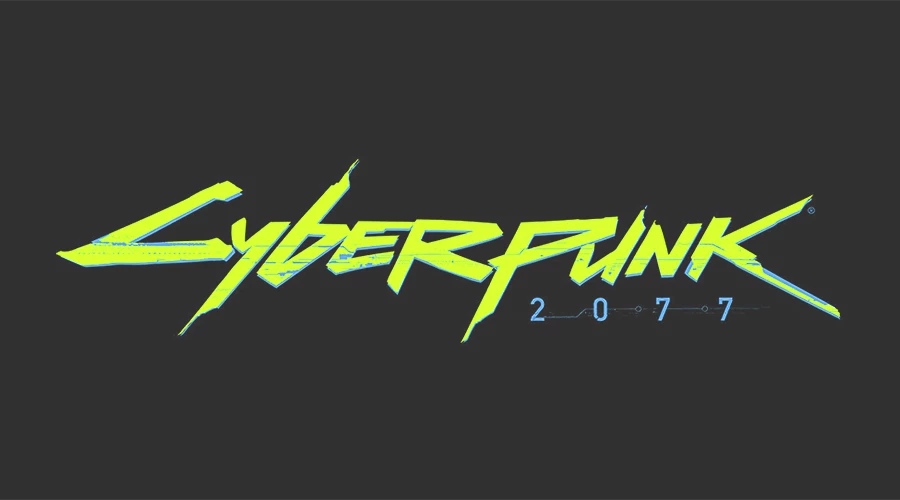
Cyberpunk 2077 Font
About Cyberpunk Font
The new generation of gamers has been eagerly anticipating the launch of Cyberpunk 2077, an open-world role-playing game set in a dystopian future. Many people like the logo of the game.
What font does Cyberpunk 2077 use in its logo?
Although the Cyberpunk 2077 logo was custom-designed by the game company CD Projekt RED, the popular Cyberpunk Font was created by Mykhailo Matviichuk, inspired by the logo in 2018 and later modified it in 2020. He used the Calligrapher app to design the font. The full name of the inspired typeface is Cyberpunk Regular. Cyberpunk font comes with uppercase and lowercase letters. Although we found many inspired fonts, this one is the closest looking one.
What can you do with this font?
Gamers, Comic creators, and other creative professionals can use these fonts for their projects. This typeface is perfect for anyone looking to add a bit of cyberpunk flair to their projects. The Cyberpunk Free Font is an Open-source and OpenType typeface that anyone can use. It features a chic, retro design that captures the aesthetic of the popular video game, with modernized letterforms and symbols to give it a unique feel.